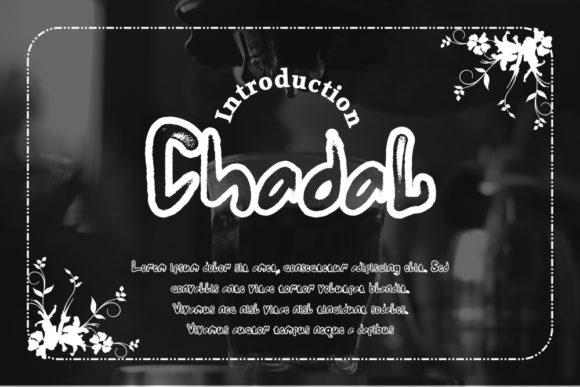
Introducing Chadal Font: The Perfect Blend of Clean and Quirky
In the world of typography, fonts play a crucial role in conveying the tone and personality of a brand or project. For designers and crafters looking for a unique and versatile font, Chadal Font is an excellent choice. This casual display font, created using a brush pen, offers a clean and quirky aesthetic that is perfect for a wide range of applications.
The Story Behind Chadal Font
Chadal Font is a carefully crafted typeface that combines the elegance of a brush pen with a playful twist. Its creator aimed to design a font that would be both clean and quirky, making it suitable for various projects, from logos and branding to social media and DIY crafts. The result is a font that exudes a sense of friendliness and approachability, making it ideal for designers and crafters who want to add a personal touch to their work.
Key Features of Chadal Font
So, what makes Chadal Font stand out from the rest? Here are some of its key features:
- Clean and Quirky Aesthetic: Chadal Font boasts a clean and quirky design that is both visually appealing and highly versatile.
- Brush Pen Style: The font’s brush pen style gives it a unique, hand-crafted feel that is perfect for adding a personal touch to projects.
- Casual Display Font: Chadal Font is a casual display font, making it ideal for headlines, titles, and other display text.
- Highly Versatile: This font can be used for a wide range of applications, from logos and branding to social media and DIY crafts.
Uses for Chadal Font
Chadal Font is an incredibly versatile typeface that can be used for various projects. Here are some ideas to get you started:
- Logos and Branding: Chadal Font is perfect for creating unique and memorable logos that reflect a brand’s personality.
- Social Media Graphics: Use Chadal Font to create eye-catching social media graphics that stand out from the crowd.
- DIY Crafts: Add a personal touch to your DIY crafts, such as handmade cards, gift tags, and more.
- Signage and Posters: Chadal Font is also suitable for creating eye-catching signage and posters that grab attention.
Tips for Using Chadal Font
To get the most out of Chadal Font, here are some tips to keep in mind:
- Experiment with Sizes: Chadal Font looks great in various sizes, so don’t be afraid to experiment to find the perfect fit for your project.
- Pair with Other Fonts: Try pairing Chadal Font with other fonts to create a unique and visually appealing combination.
- Use for Headlines and Titles: Chadal Font is perfect for headlines and titles, so use it to add a touch of personality to your text.
| Font Name | Chadal Font |
| Author | Gblack Id |
Chadal Font is a unique and versatile typeface that offers a perfect blend of clean and quirky. Its brush pen style and casual display font design make it suitable for a wide range of applications, from logos and branding to social media and DIY crafts. With its highly versatile nature and ease of use, Chadal Font is an excellent choice for designers and crafters looking to add a personal touch to their work.